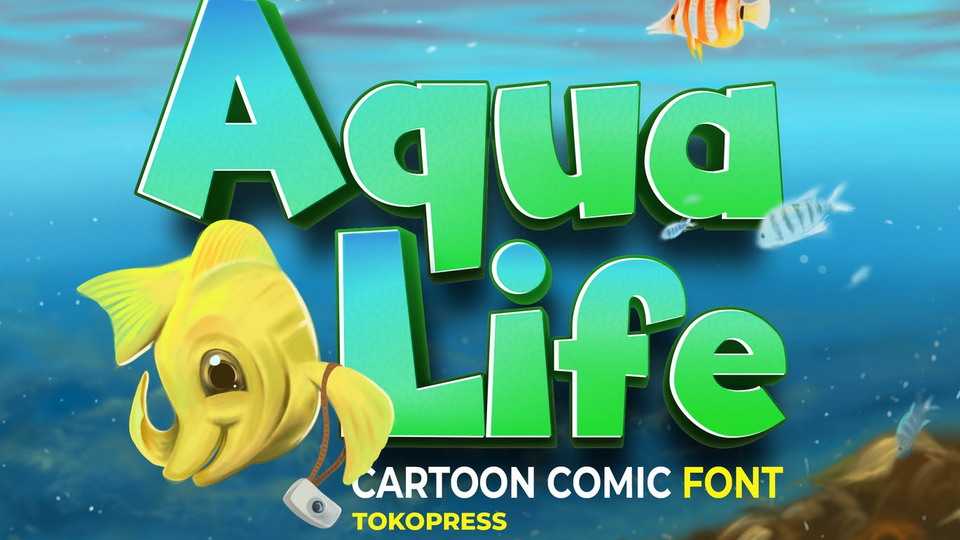
Download Aqua Life font, a cartoon comic typeface. Happiness and joy are what children world. And Aqua Life is all about that. It brings a smile all over the place.